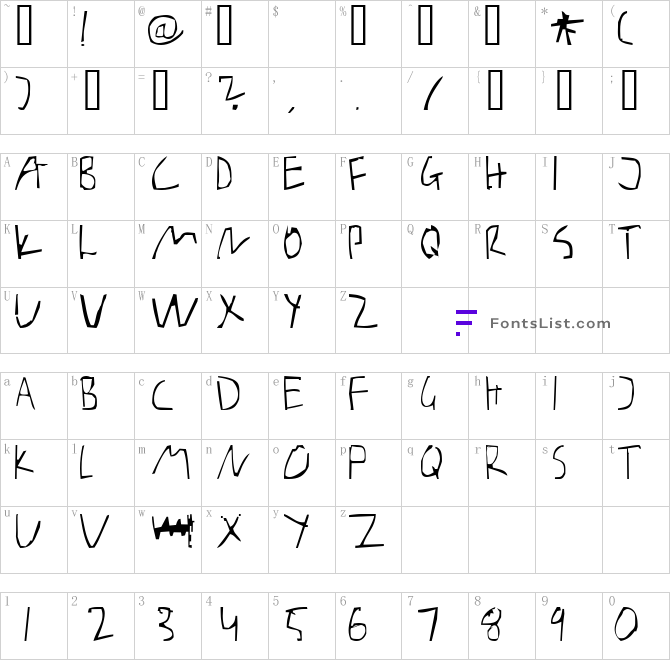
• Font Name:Barely Manilow
Barely-Manilow.ttf is a very beautiful artistic font, Barely-Manilow.ttf is widely used in the design and printing of various books and pictures,Barely-Manilow.ttf has a strong visual impact,Barely-Manilow.ttf is a commonly used font in newspapers, magazines and books, and is used in posters, e-commerce Poster design, store design, logo design, font design and other fields.Barely-Manilow.